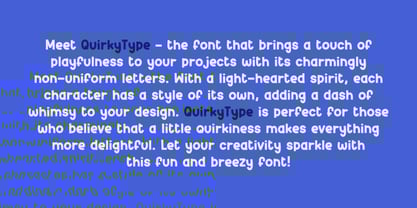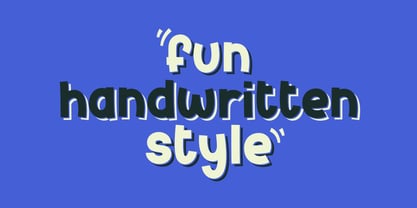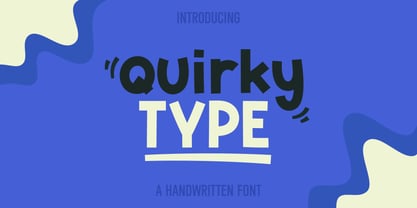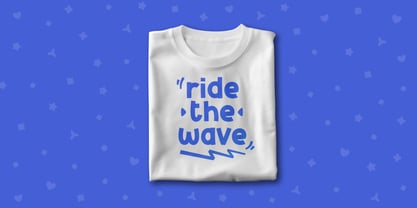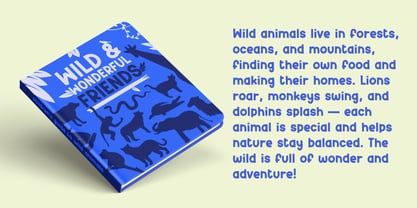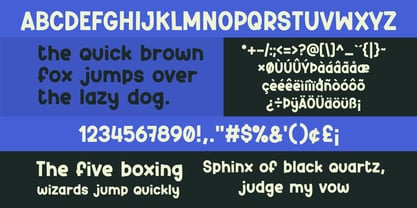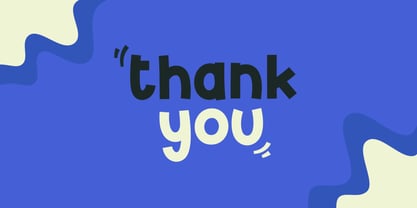
Quirky Type
QuirkyType is a cheerful and expressive handwritten font full of character. Its playful strokes and effortless flow bring a fun, personal touch to any design. Perfect for logos, quotes, invitations, and social media graphics, QuirkyType adds a spark of charm and creativity wherever it appears. Let your words dance with personality!